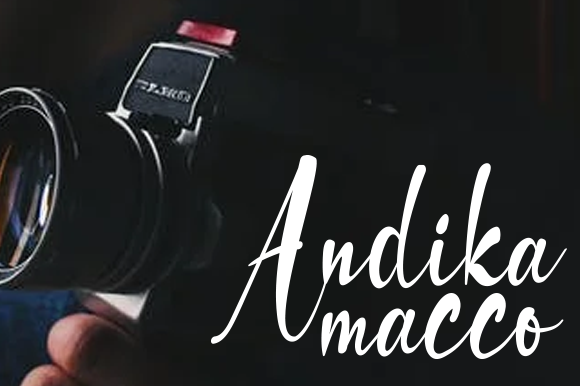
Dive into the world of elegance and grace with Andika Macco, a captivating script font that will enchant your designs. Experience a font that's as warm as a handwritten letter, crafted with the utmost care to evoke a timeless charm.
Adorn your Instagram posts with the allure of Andika Macco, letting your words dance with a touch of sophistication. Its flowing curves and delicate strokes will transform your social media presence into a visual masterpiece. Capture the attention of your followers with a font that exudes both style and substance.
Unleash your creativity with Andika Macco, a font that's as versatile as your imagination. Whether you're designing wedding invitations that feel like a whispered promise, crafting personalized stationary that exudes warmth, or creating eye-catching social media posts that demand attention, Andika Macco is your perfect companion.
Fall in love with the authentic feel of Andika Macco, a font that's as genuine as it is beautiful. Its hand-lettered style brings a touch of authenticity to your designs, creating a connection that resonates with your audience.
With Andika Macco, you'll discover a font that's not just a tool, but a work of art. Its intricate details and charming imperfections are a testament to the passion and dedication that went into its creation. Embrace the beauty of imperfection and let your designs shine with a touch of individuality.